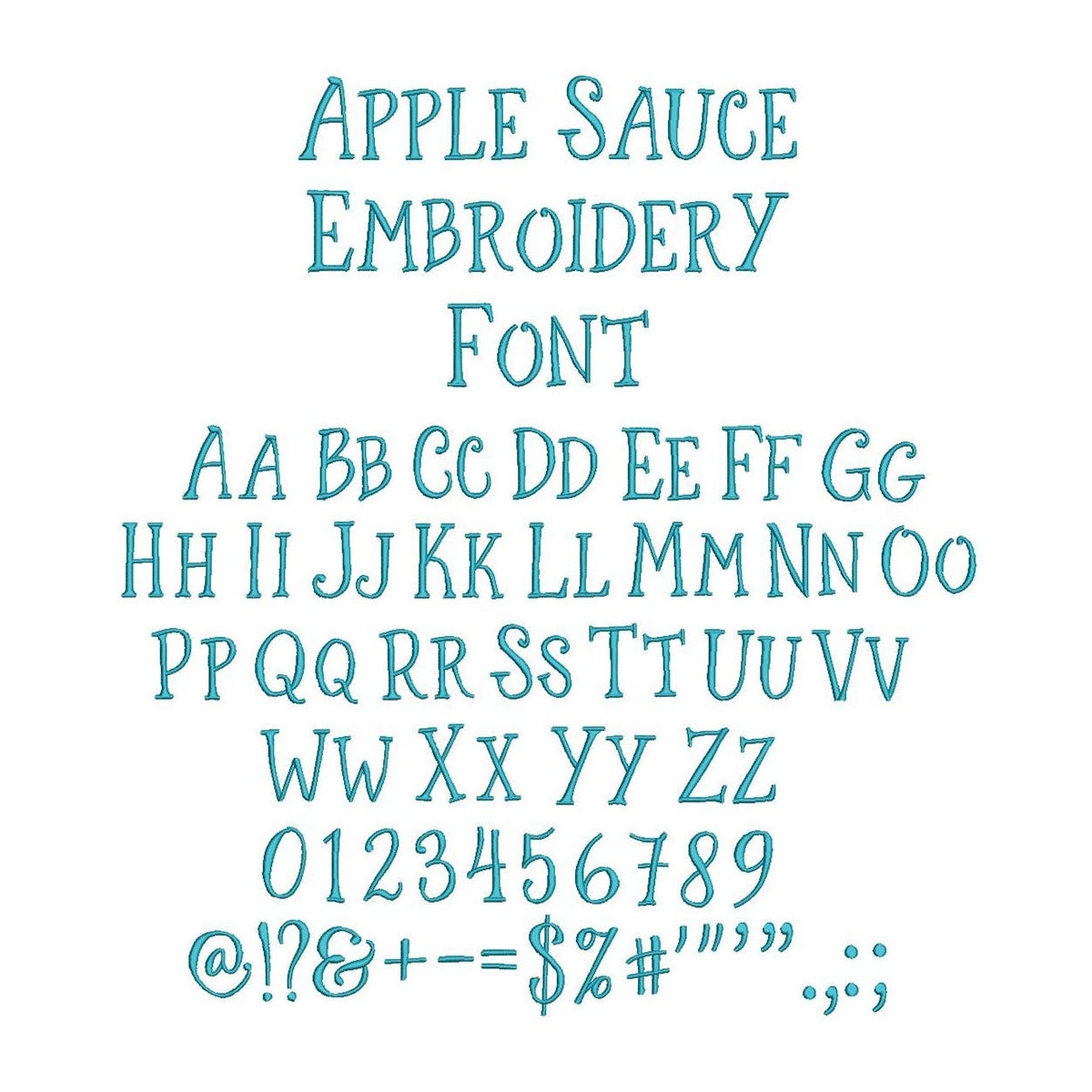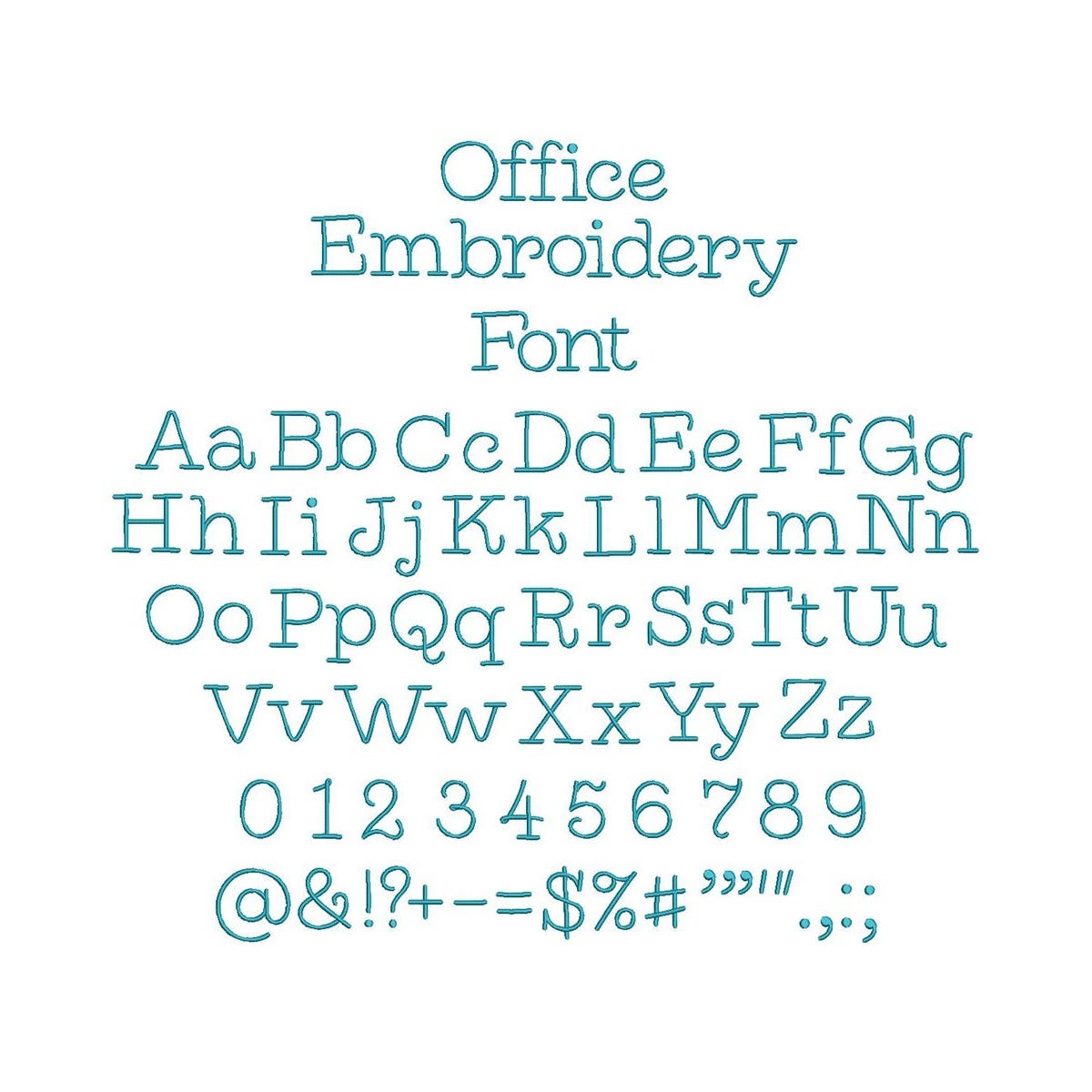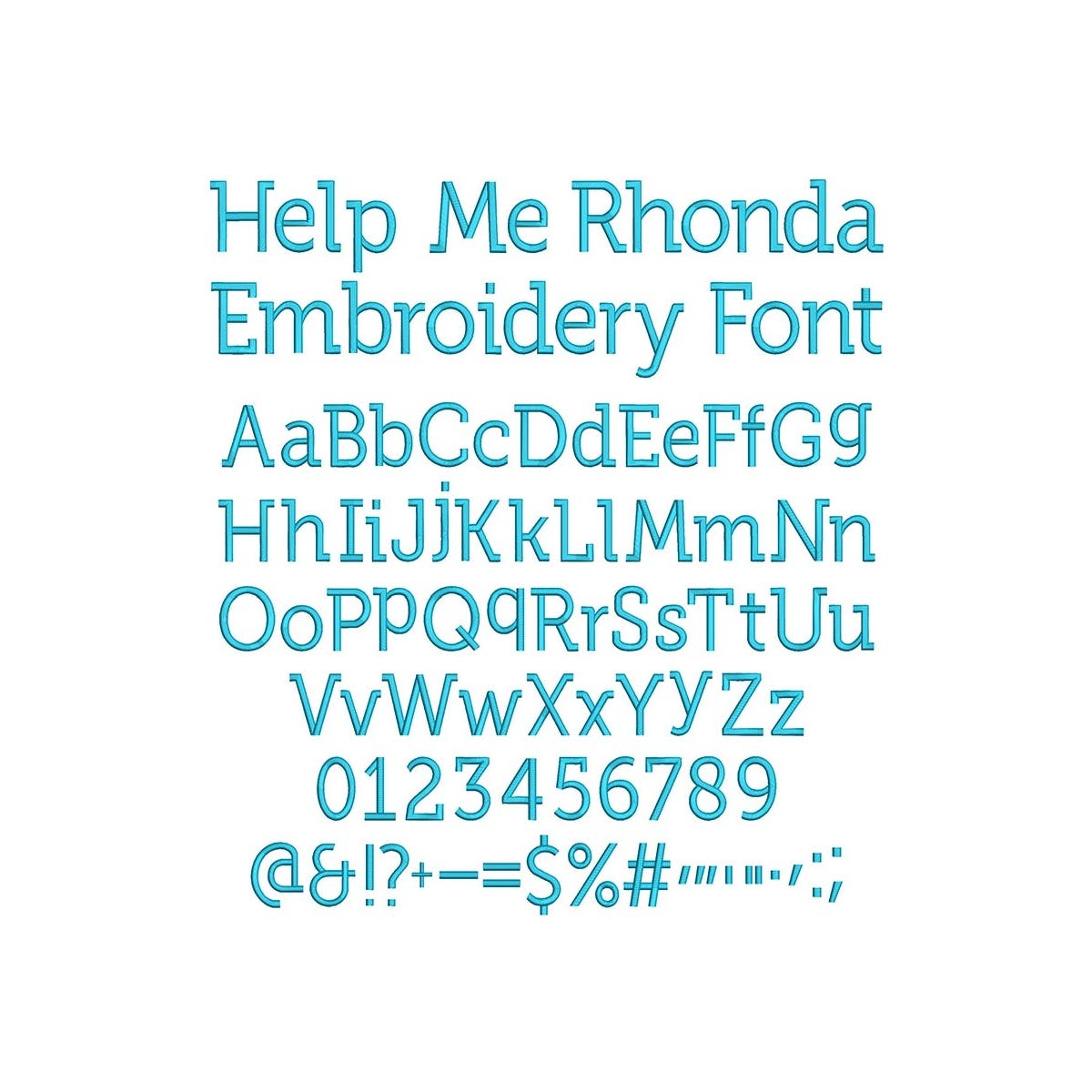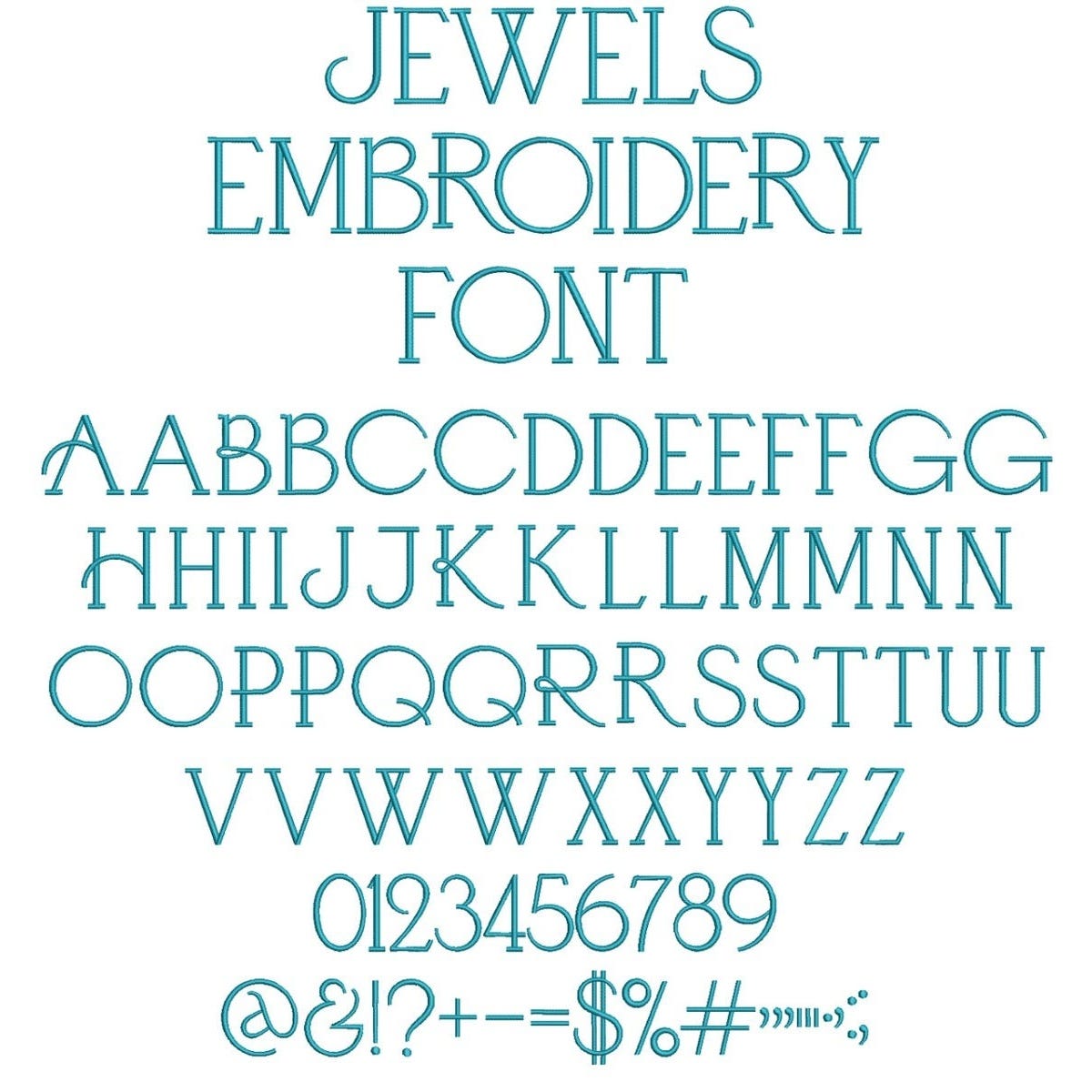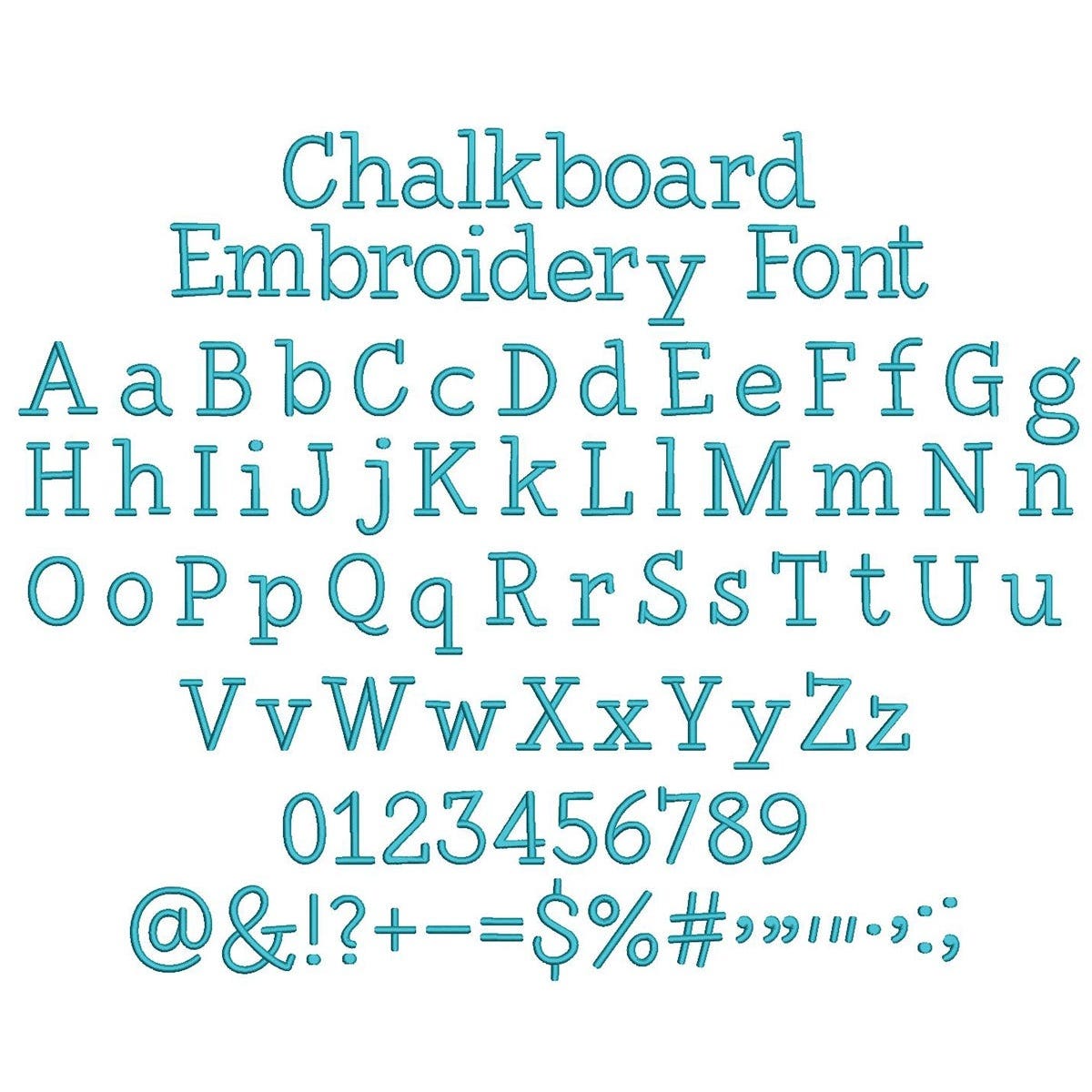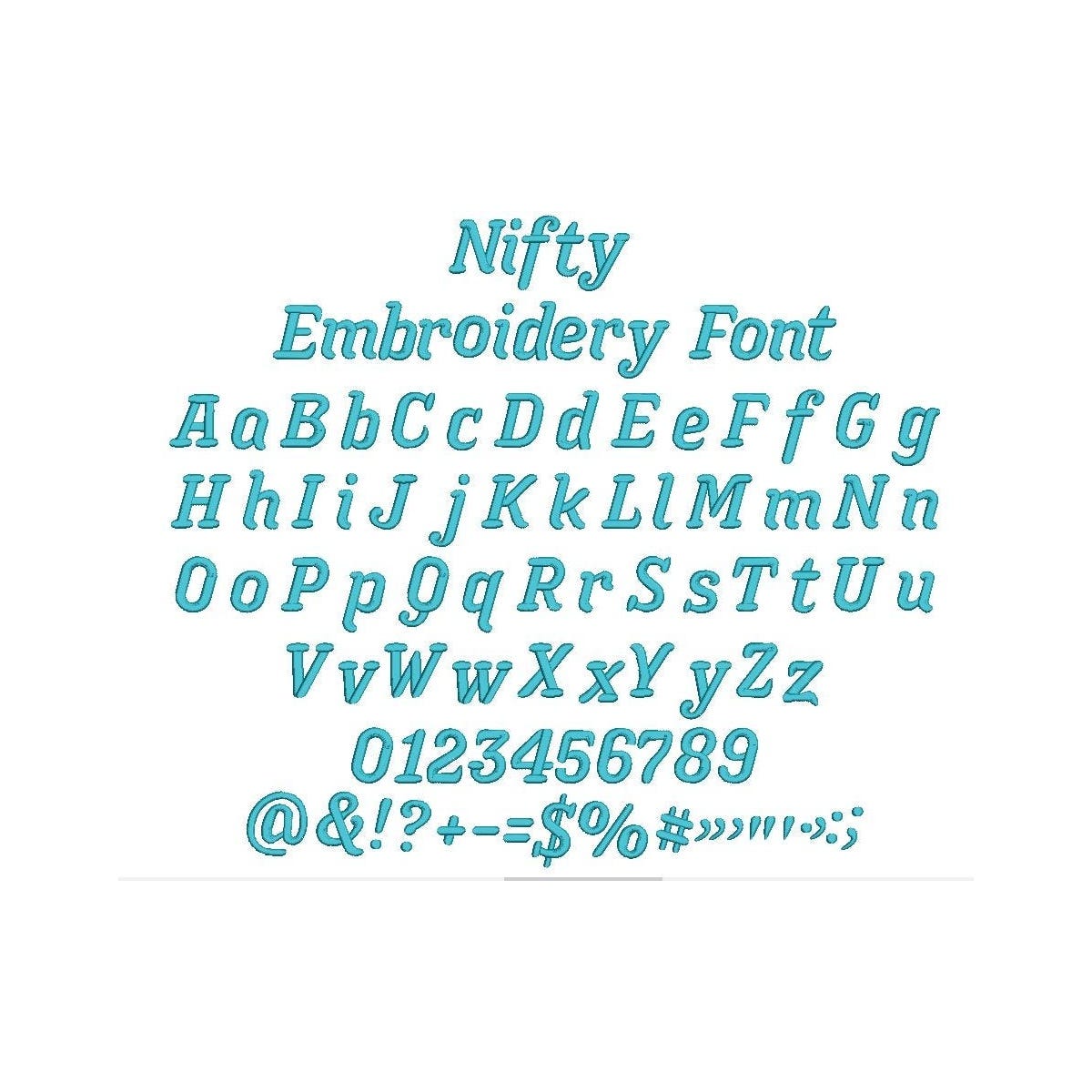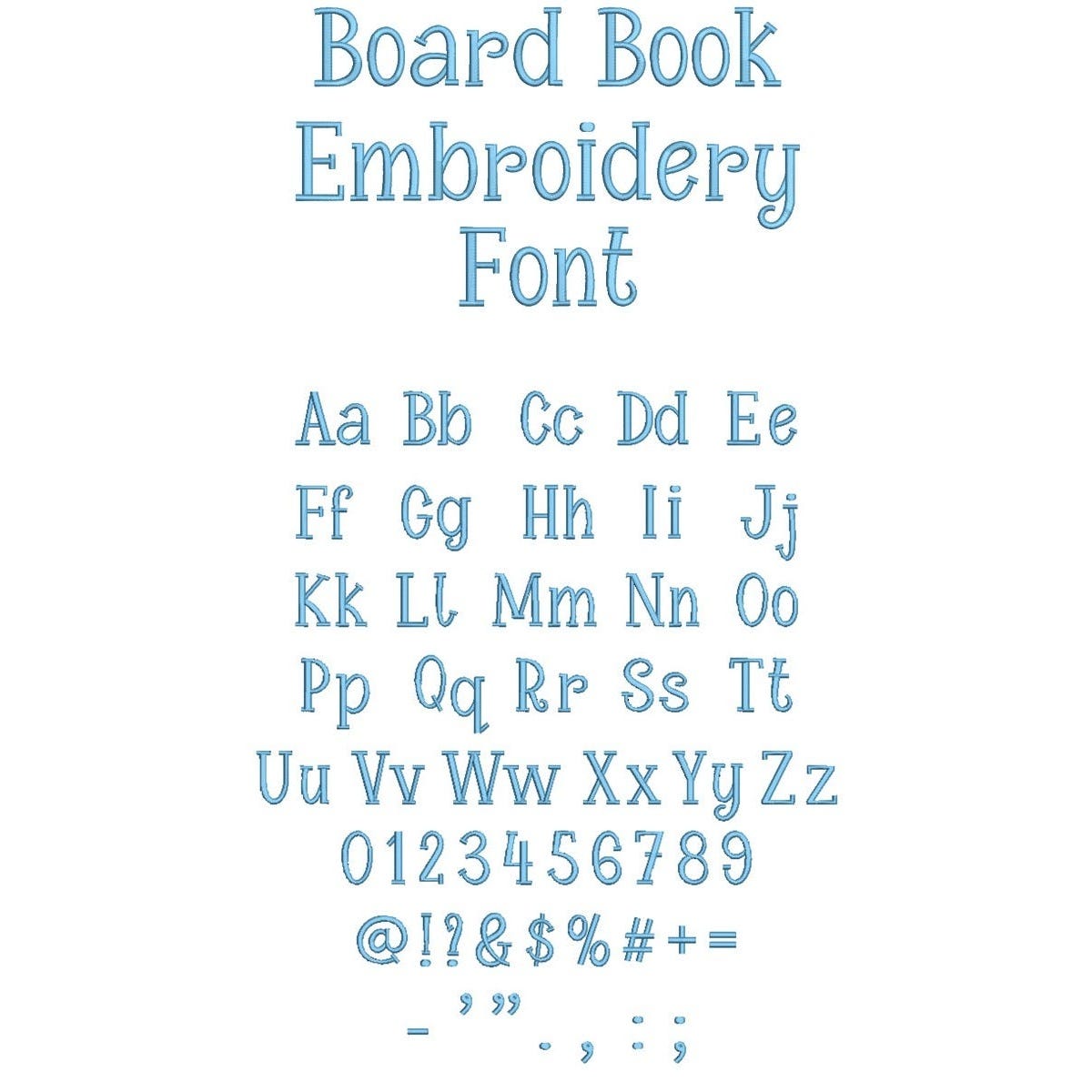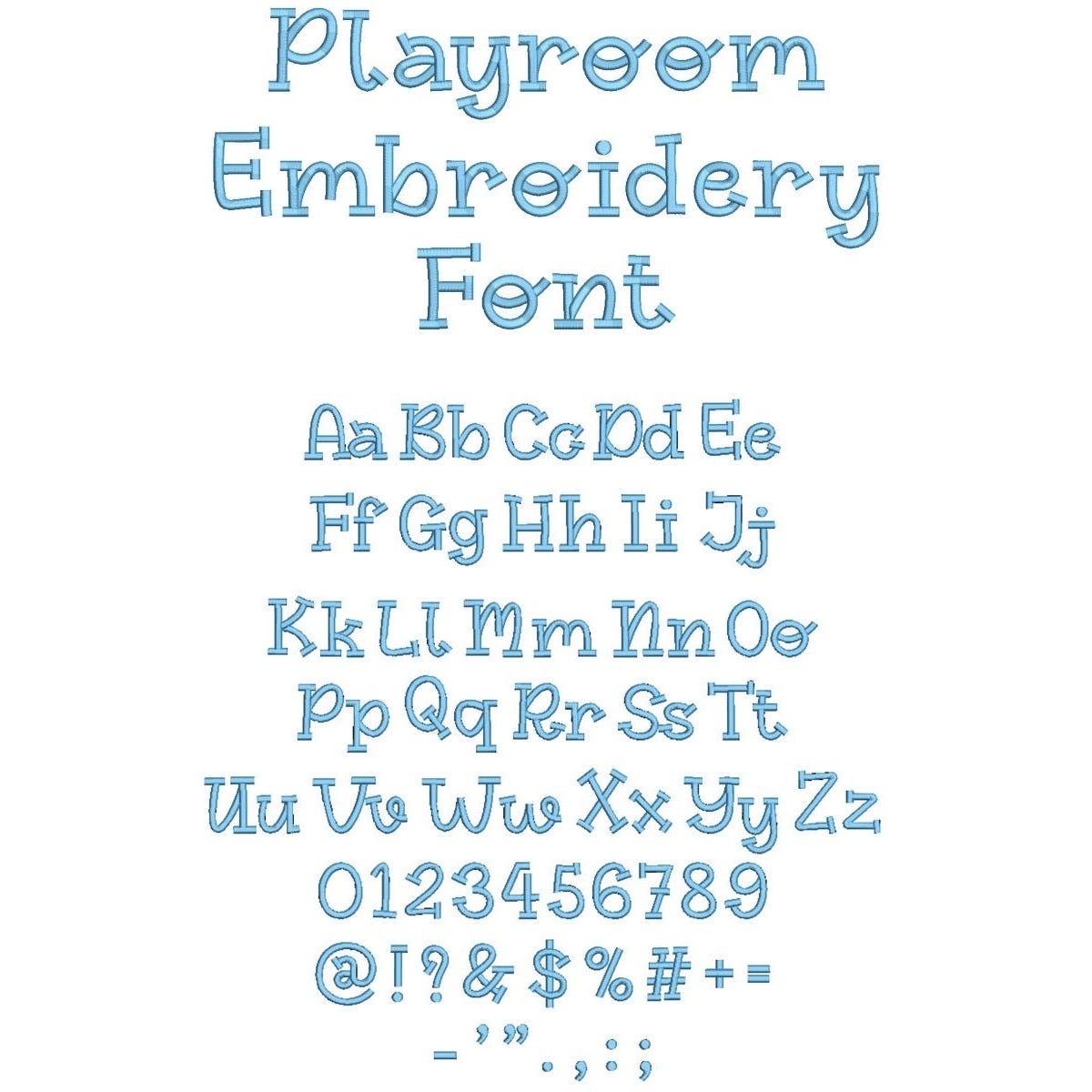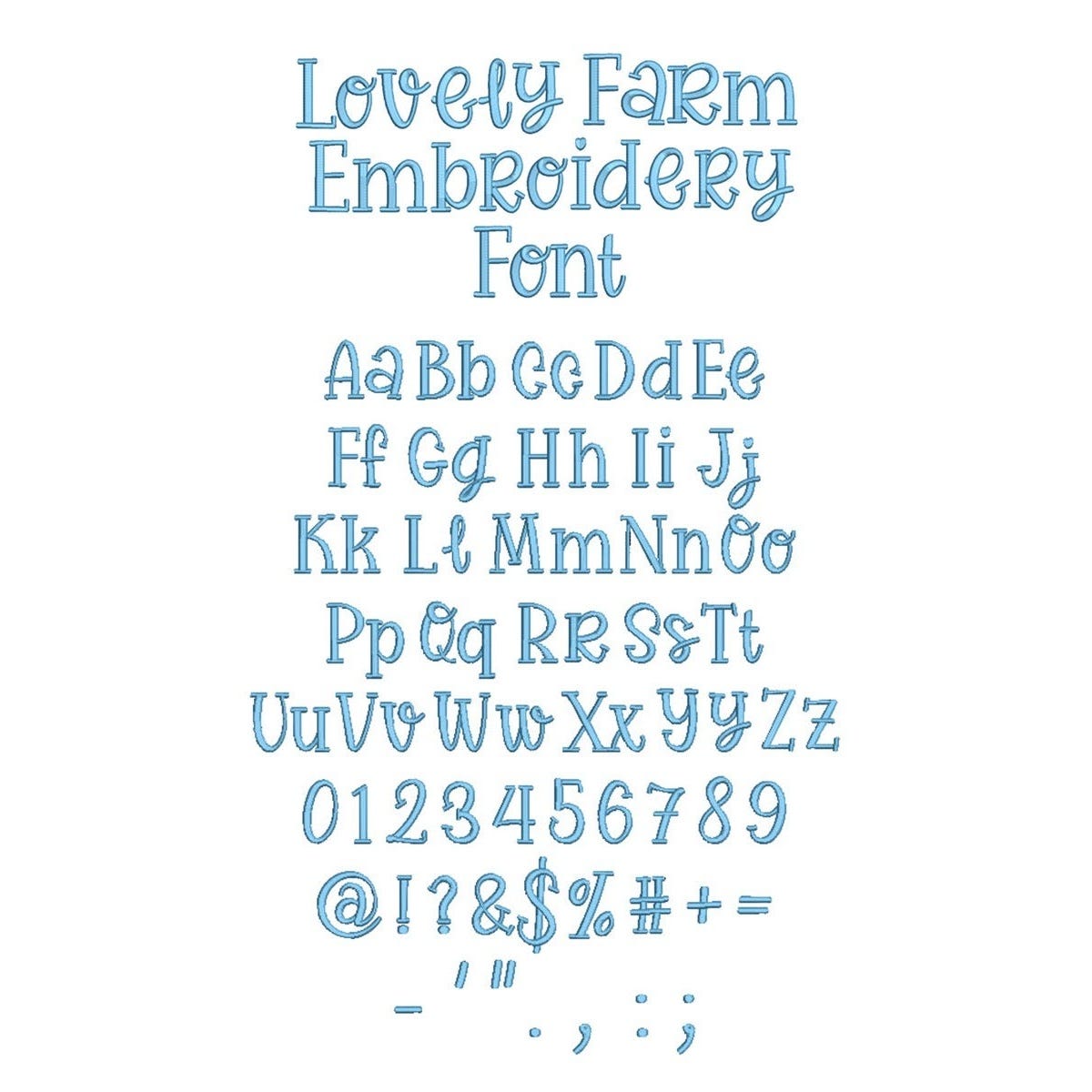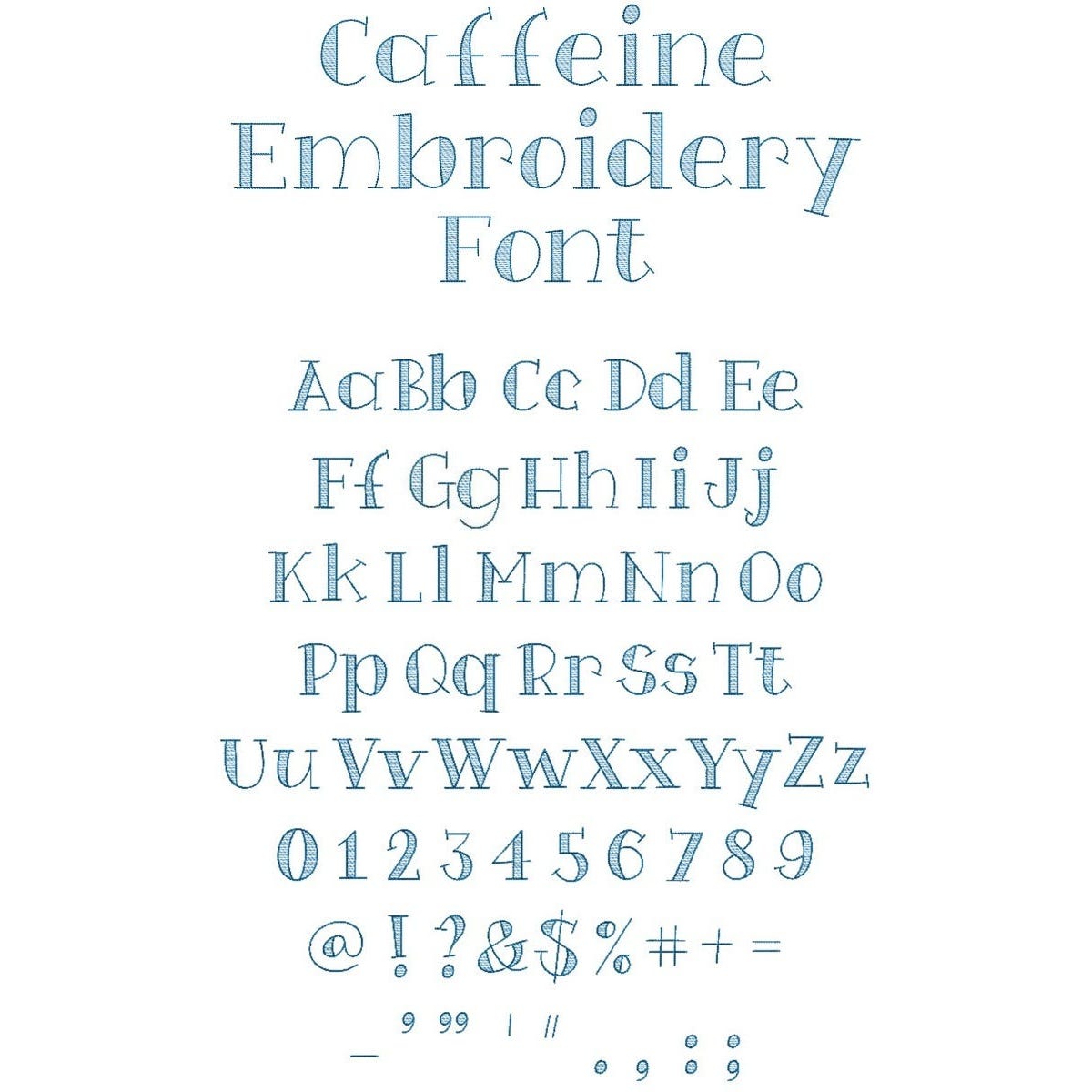
Give your personalized projects a classic touch with the Serif Embroidery Font 1 Bundle! This versatile lineup brings together a variety of serif lettering styles, giving you plenty of creative options for names, initials, words, and more.